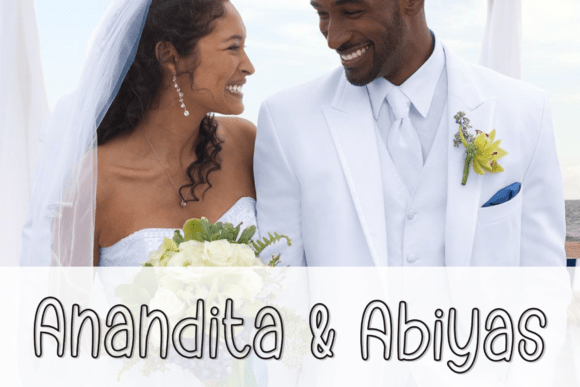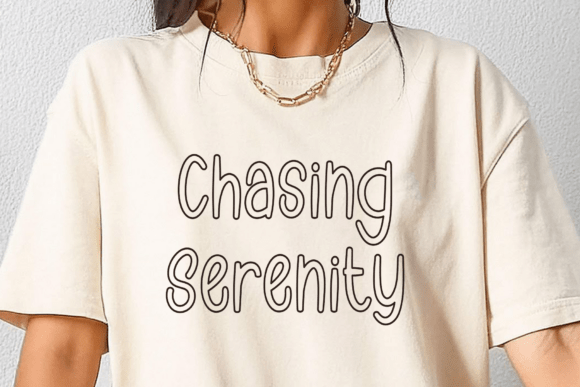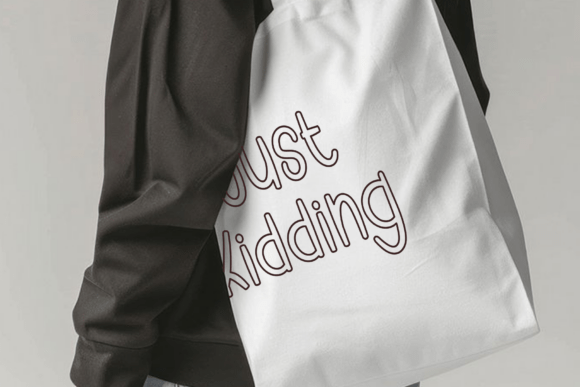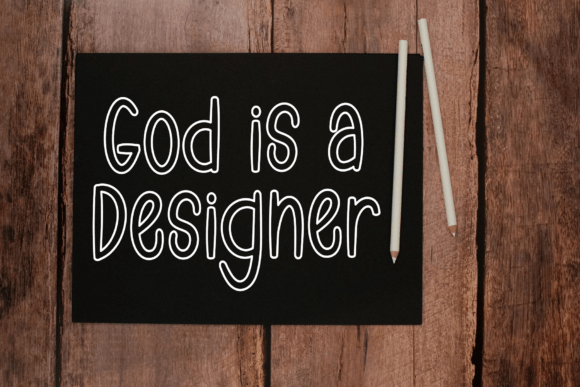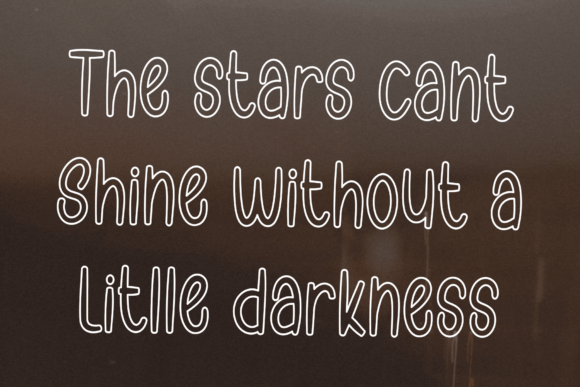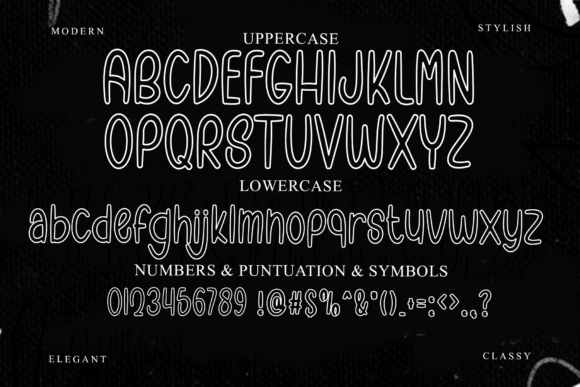
Introduction to Pretty Awesome Font
Pretty Awesome is a casual and creative font that exudes warmth and friendliness.
Key Features of Pretty Awesome Font
Why Choose Pretty Awesome Font?
Pretty Awesome Font offers exceptional quality and versatility, making it a valuable addition to your design toolkit. Whether you’re creating for personal projects or commercial use, Pretty Awesome Font delivers professional results.